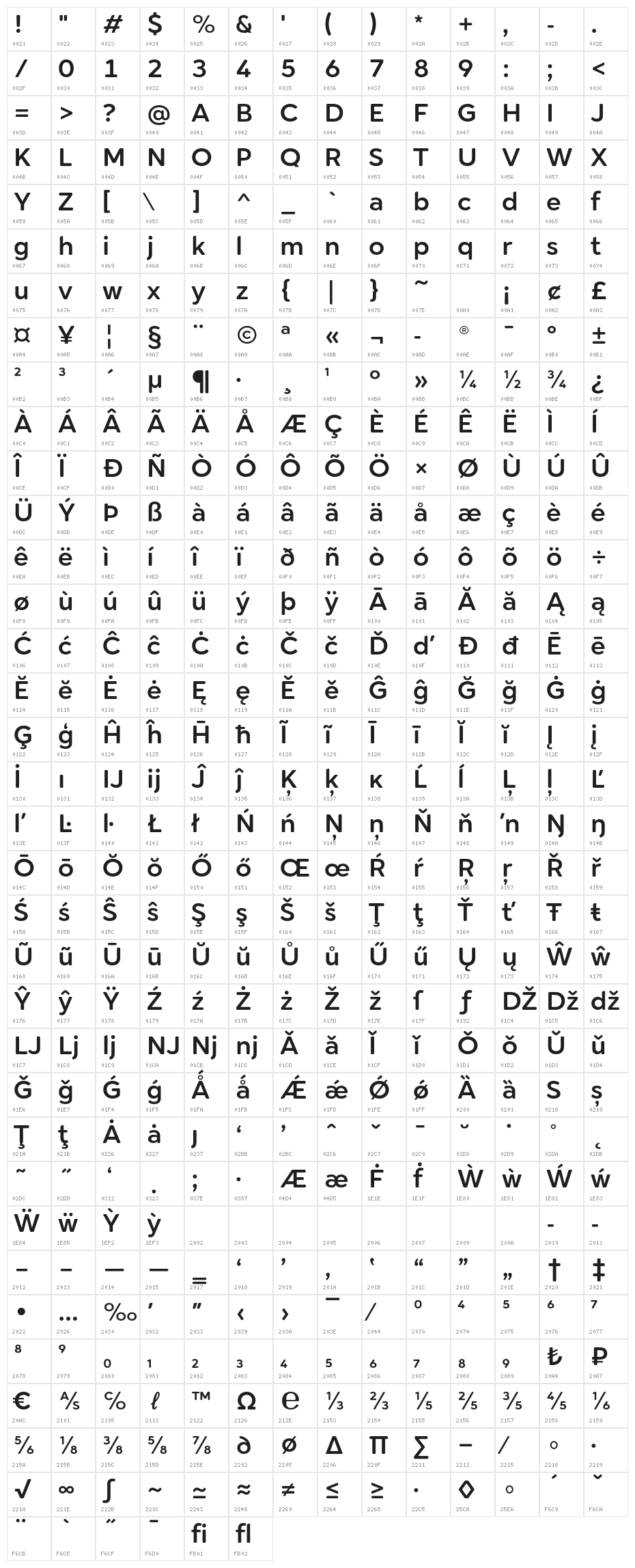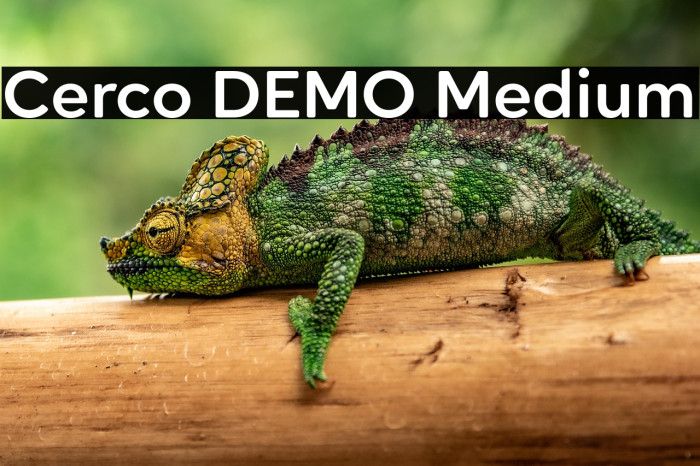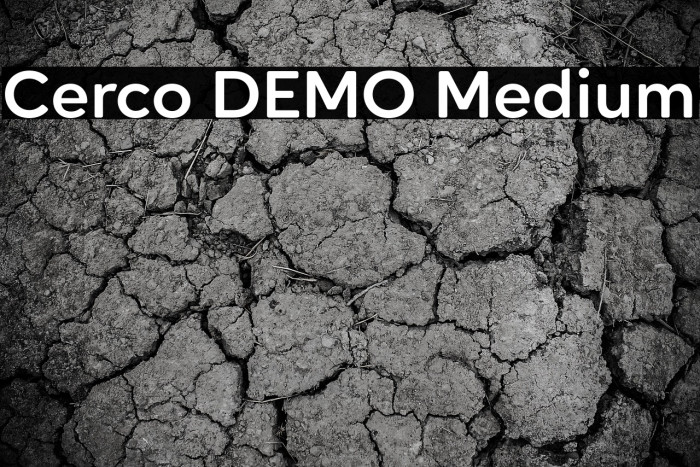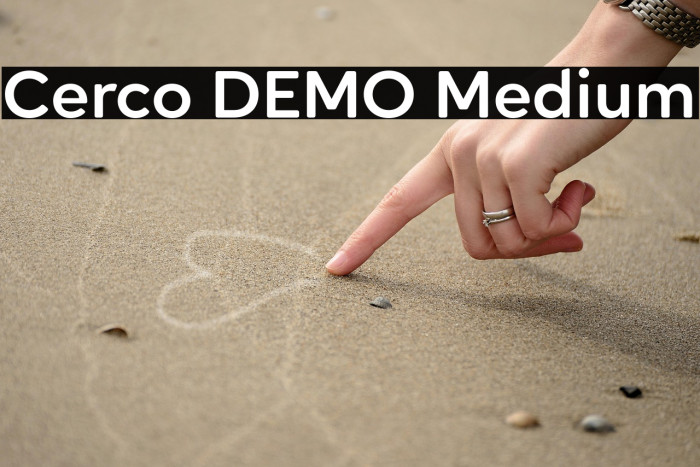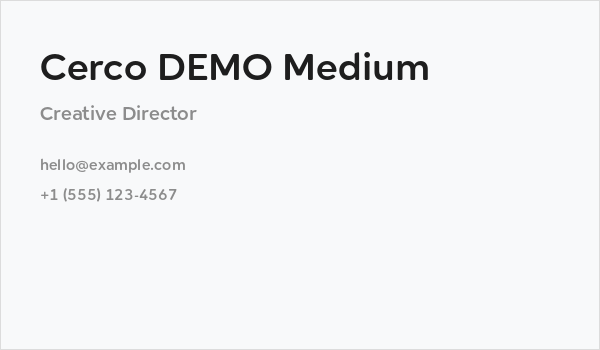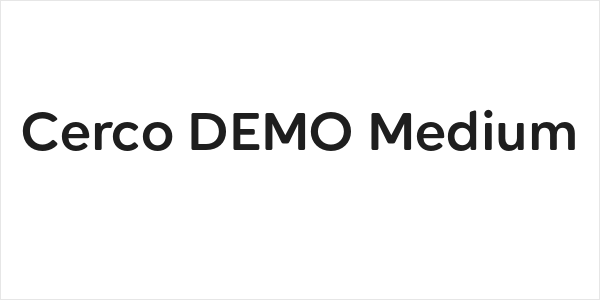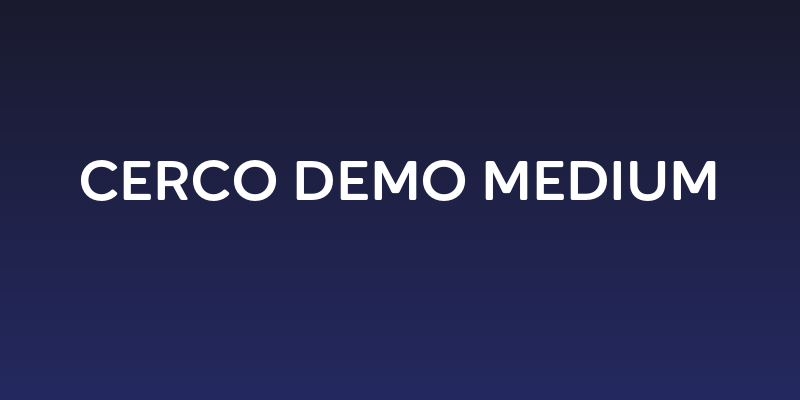
Cerco DEMO Medium Font
Cerco DEMO Medium Description
This font features a clean and modern sans-serif design, characterized by its smooth curves and uniform stroke width. The uppercase and lowercase letters maintain a consistent height and width, providing a harmonious and balanced appearance. The numerals are clear and easy to read, making them suitable for both digital and print formats. Special characters are well-defined, ensuring versatility across various applications. The overall design is minimalistic, emphasizing readability and simplicity, which makes it ideal for contemporary design projects.
| Proposed Projects | Ideal for branding, web design, corporate materials, and user interfaces due to its clarity and modern appeal. |